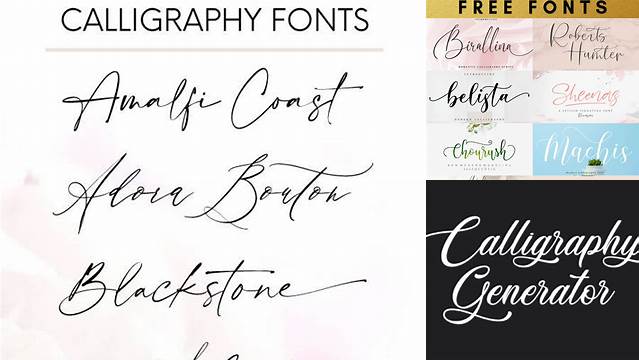
Free Modern Calligraphy Font Generator: Create Elegant Text
Are you looking to add a touch of elegance and sophistication to your projects? Modern calligraphy is the perfect way to do just that! And the best part? You don't need to be a professional calligrapher or spend a fortune on expensive tools. Thanks to the internet, there are tons of free modern calligraphy font generators available that can help you create stunning designs in minutes. Guys, let's dive into the world of modern calligraphy and explore how these amazing tools can unlock your inner artist!
What is Modern Calligraphy?
Before we jump into the font generators, let's quickly define what modern calligraphy actually is. Unlike traditional calligraphy, which adheres to strict rules and historical forms, modern calligraphy is a much more relaxed and expressive art form. It's all about embracing creativity, experimenting with different styles, and adding your personal touch. Think flowing lines, playful curves, and unique letterforms. It’s a great way to create custom and unique text for any project. This makes it perfect for a wide range of applications, from wedding invitations and greeting cards to logos, websites, and social media graphics. Modern calligraphy is characterized by its versatility and adaptability, allowing artists to blend traditional techniques with contemporary design principles. This fusion results in visually appealing text that stands out and conveys a sense of artistry. The beauty of modern calligraphy lies in its ability to evoke emotions and capture attention, making it a valuable skill for designers, artists, and anyone looking to add a personal touch to their work. Modern calligraphy has evolved significantly over the years, with new styles and techniques constantly emerging. This dynamic nature ensures that it remains a relevant and exciting art form. Whether you're a seasoned designer or a complete beginner, exploring the world of modern calligraphy can be a rewarding experience. The availability of online resources and tools has made it easier than ever to learn and practice this beautiful art form. So, grab your pen (or your keyboard!) and start creating your own unique calligraphy masterpieces.
Why Use a Modern Calligraphy Font Generator?
You might be wondering, "Why use a font generator when I could just write calligraphy by hand?" Well, while hand-lettered calligraphy is beautiful, it's also time-consuming and requires a certain level of skill and practice. Modern calligraphy font generators offer a fantastic alternative for those who want the look of calligraphy without the effort. These generators are especially useful for projects that require consistency, such as branding materials or large-scale designs. Using a font generator ensures that your text maintains a uniform appearance throughout, which can be challenging to achieve with hand-lettering. Moreover, font generators provide a wide range of styles and customization options, allowing you to experiment with different looks and find the perfect fit for your project. They can also be a great starting point for learning hand-lettering, as they help you understand the basic shapes and forms of calligraphy letters. Another significant advantage of font generators is their efficiency. You can quickly generate multiple variations of text in different styles, saving you a considerable amount of time and effort. This is particularly beneficial for designers who are working on tight deadlines or need to create numerous design options. Additionally, font generators are accessible to everyone, regardless of their artistic background or skill level. They provide a user-friendly interface that makes it easy to create professional-looking calligraphy designs. Whether you're a beginner or an experienced designer, font generators can be a valuable tool in your creative arsenal. They empower you to explore the world of calligraphy and create beautiful designs with ease. So, why not give it a try and see what you can create?
Benefits of Using Free Modern Calligraphy Font Generators
Okay, so why choose a free modern calligraphy font generator? There are several compelling reasons:
- Cost-Effective: Obviously, the biggest advantage is that they're free! You can experiment with different fonts and styles without spending a dime. This is particularly beneficial for small businesses, students, or anyone on a budget who wants to enhance their creative projects without incurring additional costs. The availability of free resources allows you to allocate your budget to other essential aspects of your project, such as printing, marketing, or materials. Moreover, free font generators often provide a wide range of options, ensuring that you can find the perfect style to match your needs. They also eliminate the need to purchase expensive calligraphy pens, inks, and paper, making it a more accessible and budget-friendly option for beginners. By using free font generators, you can explore various design possibilities and refine your skills without financial constraints. This empowers you to unleash your creativity and produce professional-looking results. So, if you're looking for a cost-effective way to add a touch of elegance to your projects, free modern calligraphy font generators are an excellent choice.
- Time-Saving: Creating calligraphy by hand can take hours, especially if you're not an expert. Font generators can produce beautiful results in seconds. This efficiency is invaluable for designers who are working on tight deadlines or need to create multiple design options quickly. With a font generator, you can experiment with different styles and variations in a fraction of the time it would take to hand-letter each one. This allows you to focus on other aspects of your project, such as layout, color schemes, and overall design aesthetics. Moreover, the speed of font generators enables you to create mockups and prototypes rapidly, facilitating a smoother design process. You can easily present different options to clients or collaborators and gather feedback more efficiently. This iterative approach can lead to better design outcomes and greater client satisfaction. Additionally, font generators are always available, meaning you can create beautiful calligraphy designs whenever and wherever you need them. This flexibility is particularly useful for remote workers or those who need to work on projects outside of traditional business hours. In summary, the time-saving benefits of modern calligraphy font generators make them an indispensable tool for anyone looking to add a touch of elegance to their work without sacrificing valuable time.
- Versatile: Most generators offer a range of customization options, allowing you to adjust the size, spacing, and other elements to fit your needs. This versatility is crucial for adapting your calligraphy designs to various applications, such as invitations, posters, logos, and websites. With a wide range of customization options, you can ensure that your text perfectly complements the overall design aesthetic of your project. For instance, you can adjust the letter spacing to create a more airy and elegant feel or increase the font size to make a bold statement. The ability to modify these elements allows you to tailor your calligraphy designs to specific requirements and preferences. Furthermore, many font generators offer a selection of different styles, from classic and traditional to modern and playful. This diversity enables you to find the perfect font to match the tone and message of your project. Whether you're designing a formal wedding invitation or a whimsical birthday card, a font generator can provide the ideal solution. Additionally, some generators allow you to upload your own fonts, expanding your creative possibilities even further. This feature is particularly useful for designers who want to incorporate unique or custom-made fonts into their projects. In conclusion, the versatility of modern calligraphy font generators makes them an essential tool for anyone seeking to create beautiful and customized designs.
- Easy to Use: You don't need to be a tech whiz to use these tools. Most have user-friendly interfaces that are easy to navigate. The intuitive design of these generators ensures that anyone, regardless of their technical expertise, can create stunning calligraphy designs. The simple interface typically involves typing your text into a designated box and then selecting your desired font style and customization options. This straightforward process eliminates the need for complex software or extensive training. Moreover, many font generators offer real-time previews, allowing you to see how your text will look before you finalize your design. This feature is particularly helpful for experimenting with different styles and adjustments. If you're not satisfied with the initial result, you can easily make changes and see the updated preview instantly. This iterative process ensures that you achieve the perfect look for your project. Additionally, most font generators provide clear instructions and helpful tips, guiding you through the process step by step. This support system is invaluable for beginners who are new to calligraphy or design. The ease of use of modern calligraphy font generators makes them accessible to a wide range of users, from students and hobbyists to professional designers. So, if you're looking for a user-friendly way to add a touch of elegance to your projects, these tools are an excellent choice.
Top Free Modern Calligraphy Font Generators
Alright, guys, let's get to the good stuff! Here are some of the best free modern calligraphy font generators available online:
Calligraphy.io
Calligraphy.io is a popular online tool that allows you to create your own custom calligraphy fonts. It’s a great option for those who want a truly unique look. The platform provides a user-friendly interface that makes the font creation process intuitive and enjoyable. You can start by selecting a template or creating your font from scratch, giving you full control over the design. The tool offers a wide range of customization options, including stroke thickness, letter spacing, and slant angle. This allows you to fine-tune every aspect of your font to achieve your desired aesthetic. One of the standout features of Calligraphy.io is its ability to export your fonts in various formats, such as OTF and TTF, which are compatible with most design software and operating systems. This makes it easy to integrate your custom fonts into your projects, whether you're working on a website, a presentation, or a print design. Additionally, Calligraphy.io provides helpful tutorials and resources to guide you through the font creation process. These resources are particularly beneficial for beginners who are new to font design. The platform also has a supportive community forum where you can connect with other users, share your creations, and get feedback on your designs. This collaborative environment fosters creativity and helps you improve your skills. Another advantage of Calligraphy.io is its accessibility. You can access the platform from any device with an internet connection, allowing you to work on your fonts wherever you are. The cloud-based nature of the tool ensures that your work is always saved and accessible. In summary, Calligraphy.io is a powerful and versatile tool for creating custom calligraphy fonts. Its user-friendly interface, extensive customization options, and supportive community make it an excellent choice for both beginners and experienced designers. So, if you're looking to create a truly unique font for your project, Calligraphy.io is definitely worth exploring.
FontStruct
FontStruct is another excellent option for creating your own fonts, including calligraphy styles. It uses a modular approach, making the design process fun and engaging. This unique method allows you to build fonts using geometric shapes, making it easy to create intricate and detailed designs. The platform provides a grid-based interface that simplifies the process of aligning and arranging your shapes. This precision is crucial for creating professional-looking fonts. One of the standout features of FontStruct is its extensive library of pre-made shapes and components. These elements can be easily incorporated into your designs, saving you time and effort. The platform also offers a wide range of customization options, including the ability to adjust the size, shape, and color of your modules. This flexibility allows you to create fonts that perfectly match your style and preferences. FontStruct supports the creation of both vector and bitmap fonts, giving you the option to choose the format that best suits your needs. Vector fonts are scalable without losing quality, making them ideal for logos and other designs that need to be displayed at various sizes. Bitmap fonts, on the other hand, are pixel-based and can be used to create retro or pixelated effects. The platform also has a vibrant community of users who share their creations and provide feedback. This collaborative environment fosters creativity and helps you discover new design ideas. You can browse the FontStruct gallery to find inspiration and see what other users have created. Additionally, FontStruct allows you to download your fonts in various formats, including TTF and OTF, making them compatible with most design software and operating systems. The platform also provides tools for testing your fonts, ensuring that they render correctly in different applications. In summary, FontStruct is a powerful and versatile tool for creating custom fonts. Its modular approach, extensive library of shapes, and supportive community make it an excellent choice for designers of all levels. So, if you're looking to create unique and professional-looking calligraphy fonts, FontStruct is definitely worth considering.
Remember, the key to great calligraphy is practice and experimentation. Don't be afraid to try different fonts, styles, and techniques until you find what works best for you. And most importantly, have fun with it! Calligraphy is a beautiful art form that can bring a touch of sophistication and personality to any project. Whether you're designing invitations, creating social media graphics, or adding a personal touch to your everyday correspondence, modern calligraphy can help you express your creativity and make a lasting impression. With the abundance of free resources and tools available online, there's never been a better time to explore the world of calligraphy. So, grab your favorite pen (or your keyboard!) and start creating your own unique calligraphy masterpieces. Embrace the imperfections and enjoy the process of learning and growing as an artist. The more you practice, the more confident and skilled you will become. And who knows, you might even discover a hidden talent for calligraphy! So, go ahead and let your creativity flow and see what beautiful things you can create with the help of modern calligraphy. Happy creating!